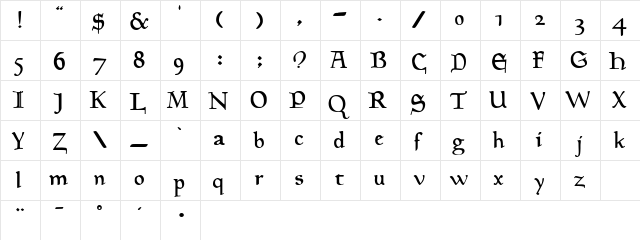
MagicMedieval Regular
| Copyright | This font is based on Goudy Medieval, modified by Dave Howell for use on Magic: The Gathering cards. |
Design Context for MagicMedieval Typeface
MagicMedieval takes a measured approach to typography — its balanced proportions and neutral character make it a reliable workhorse for both digital and print work.